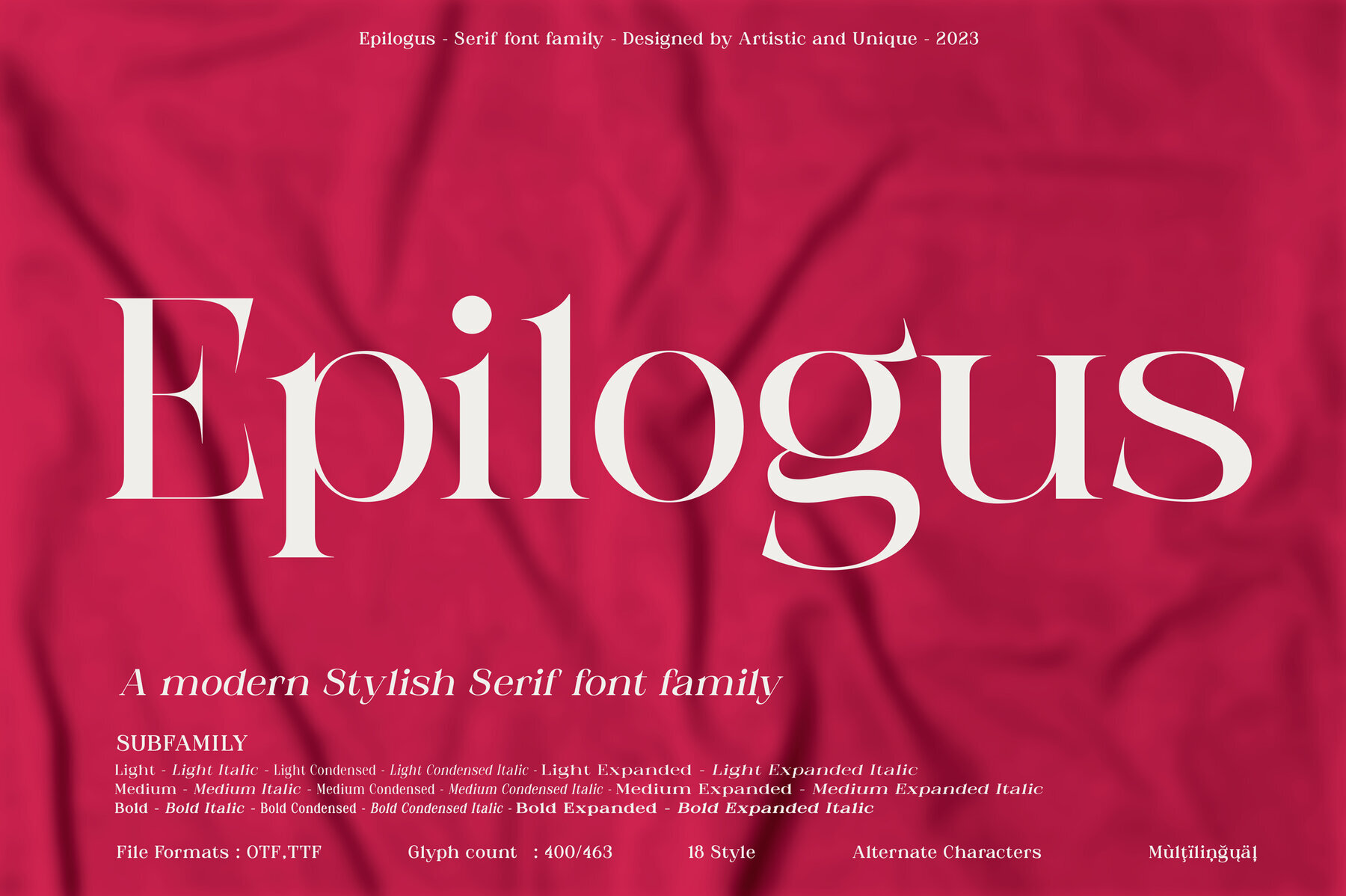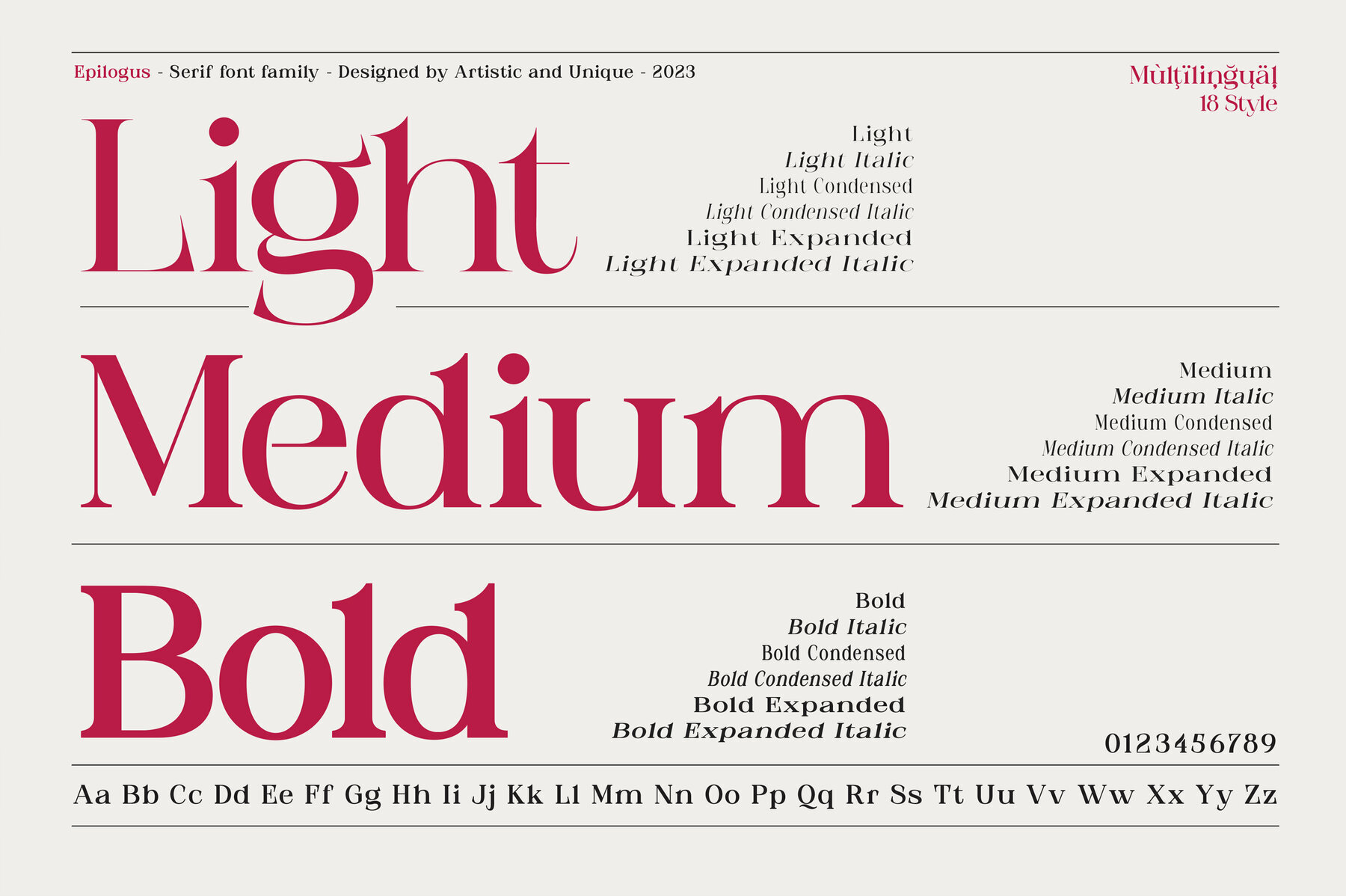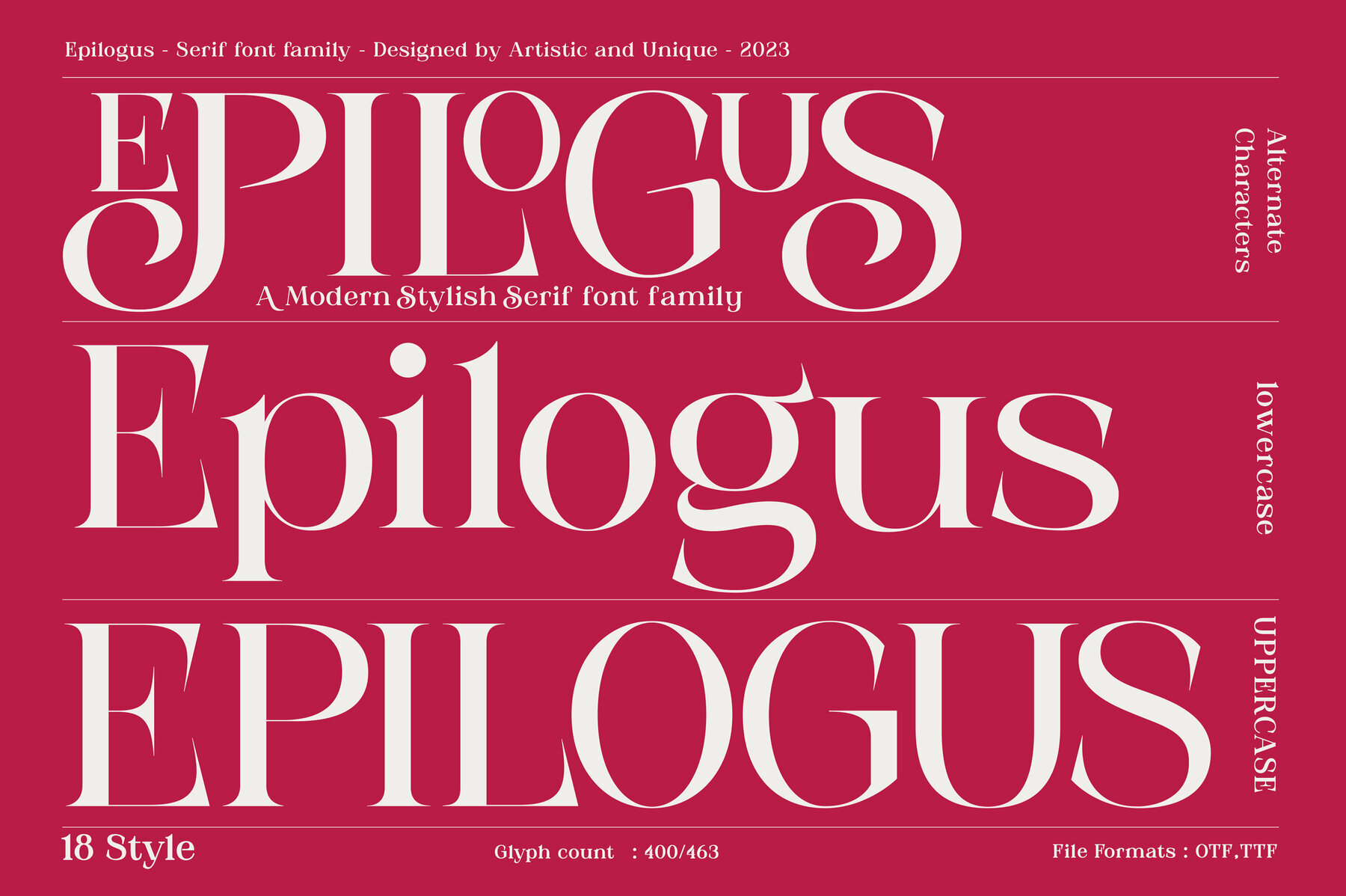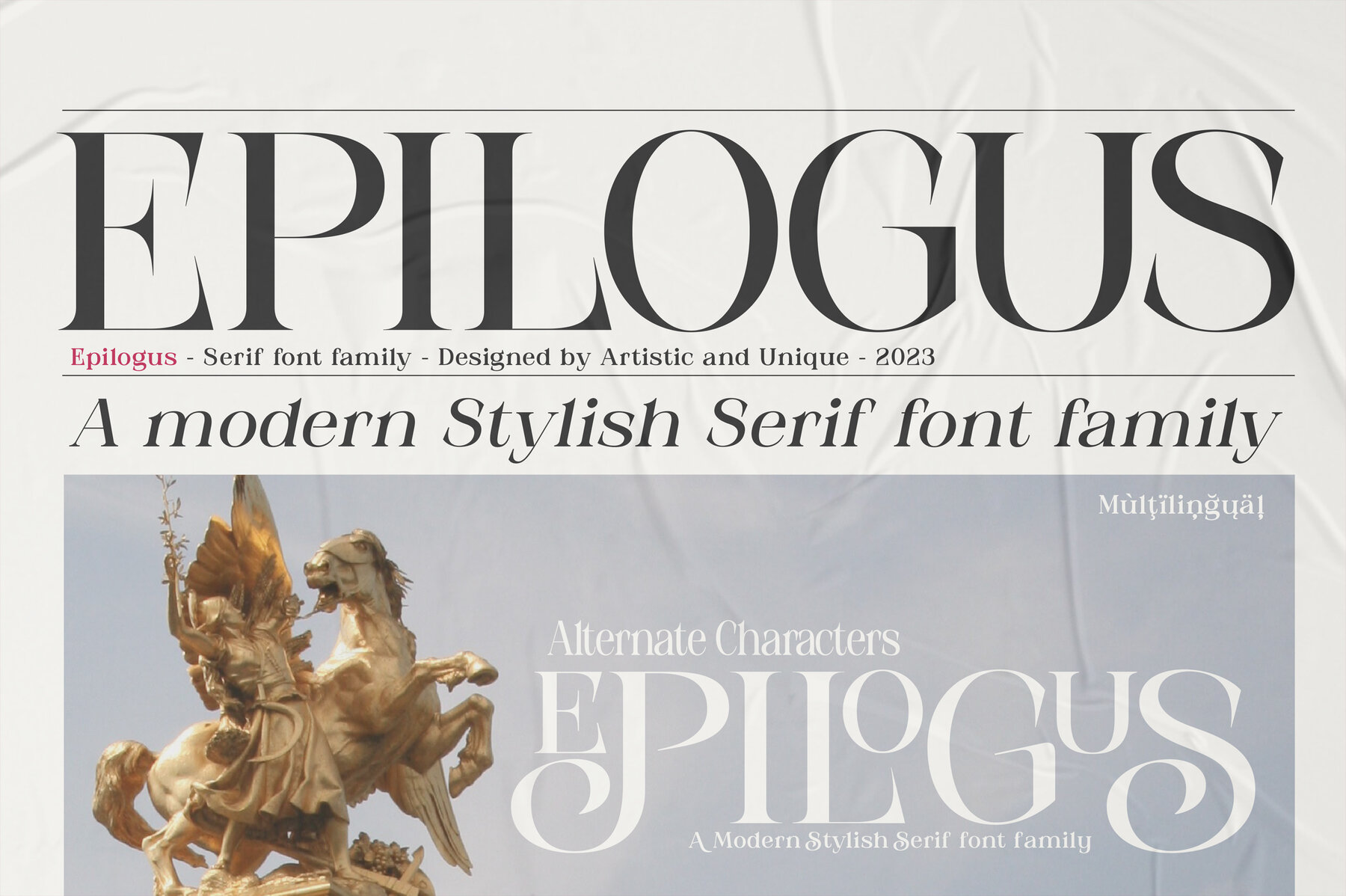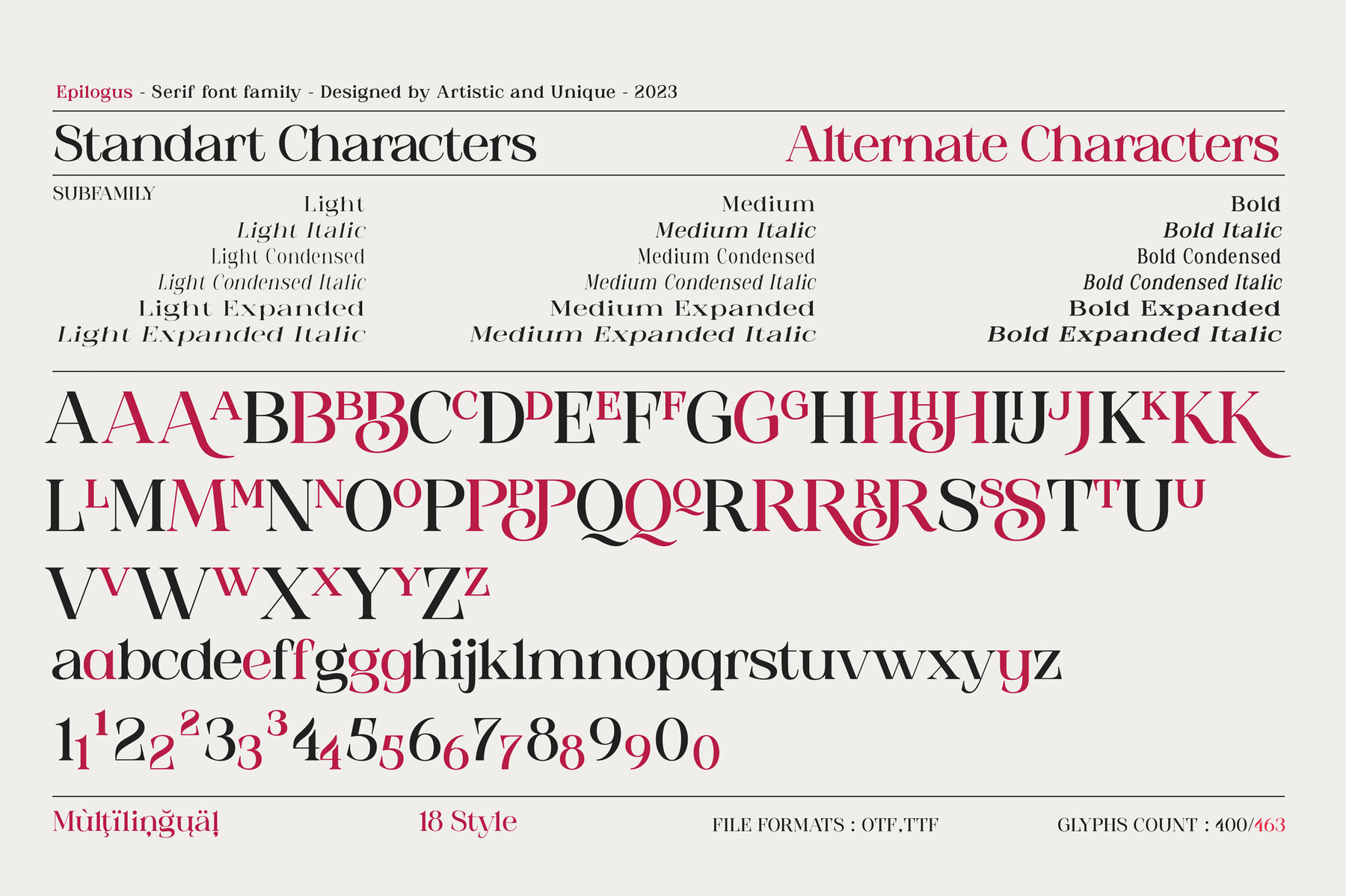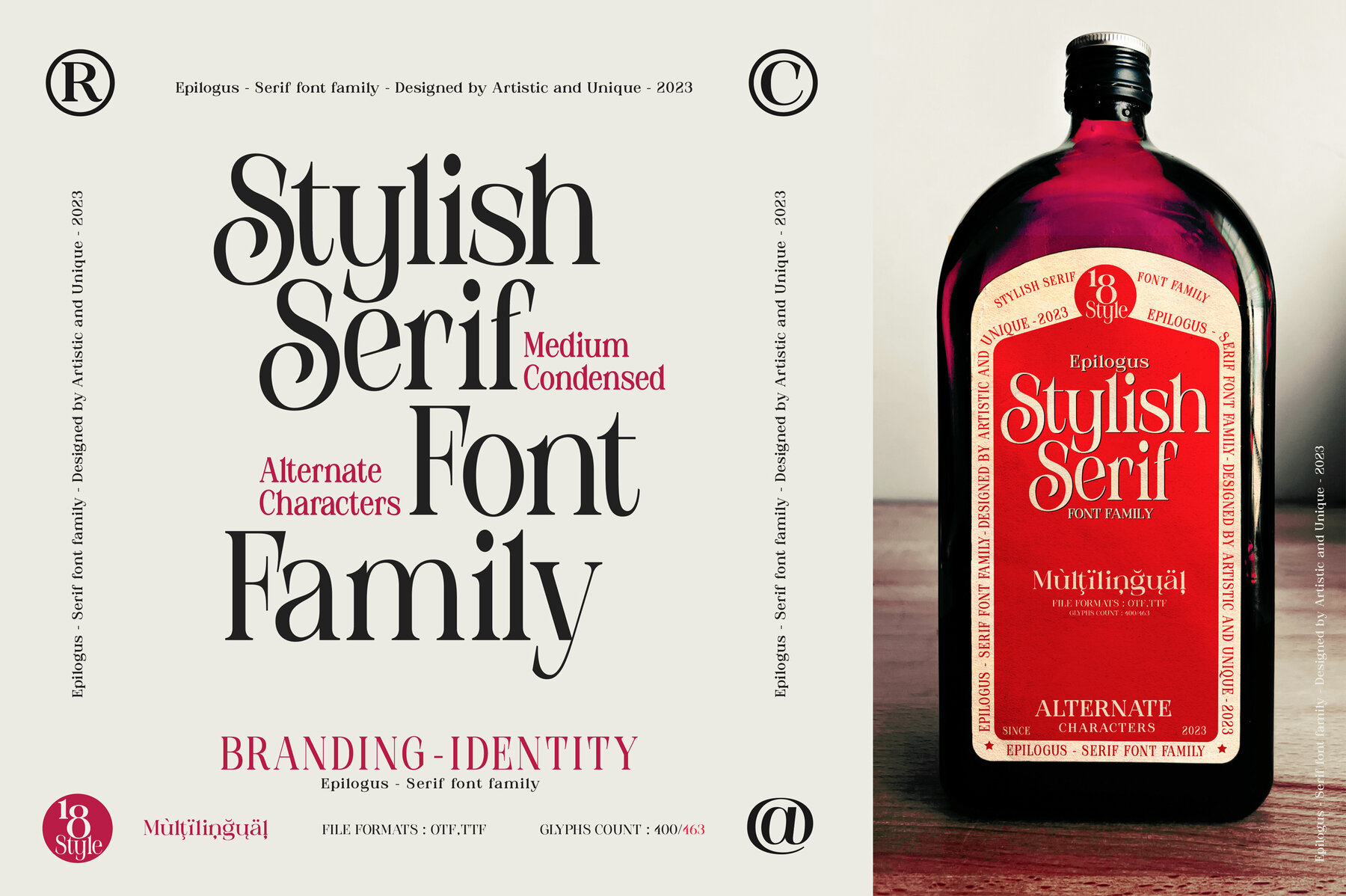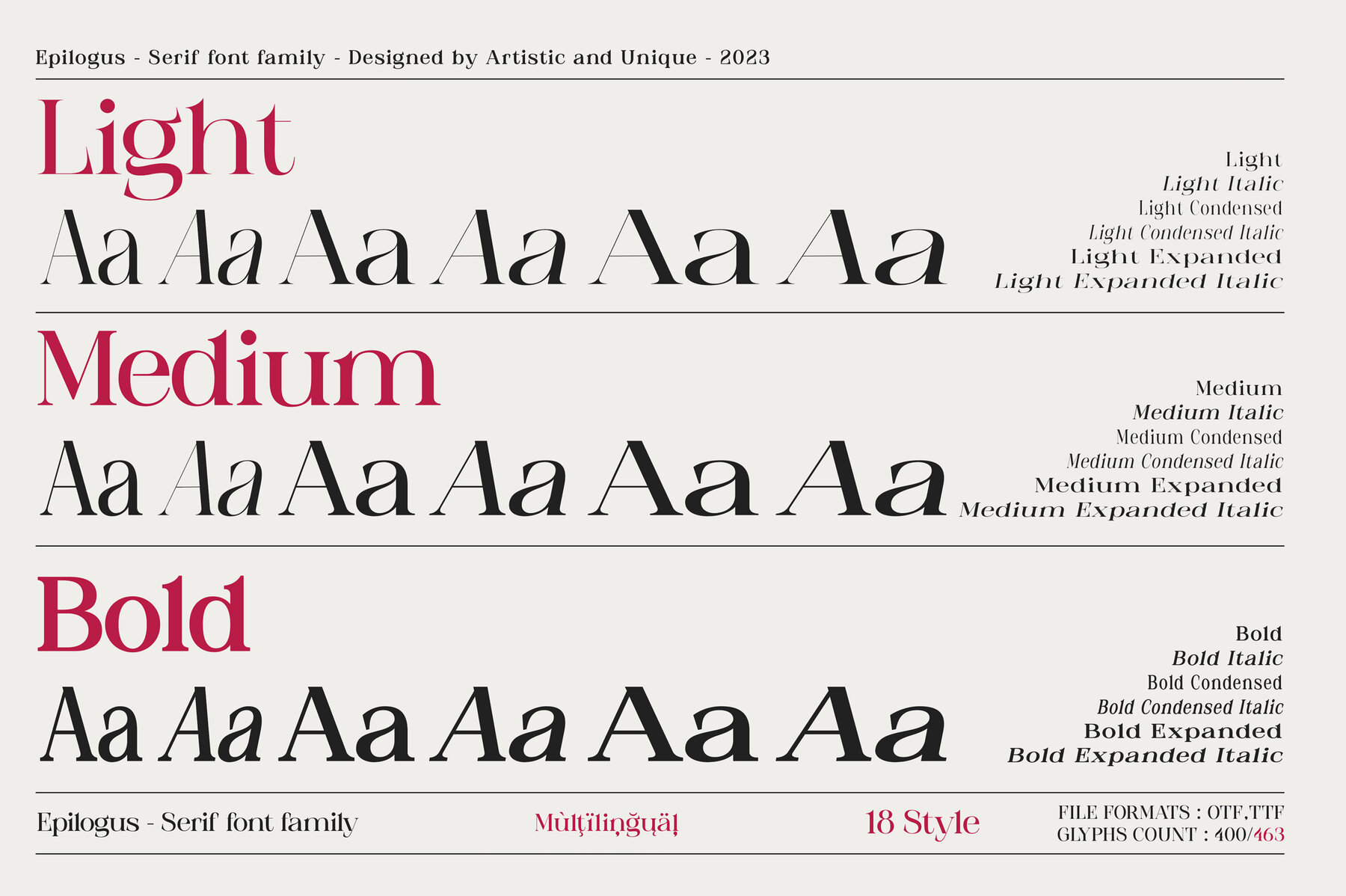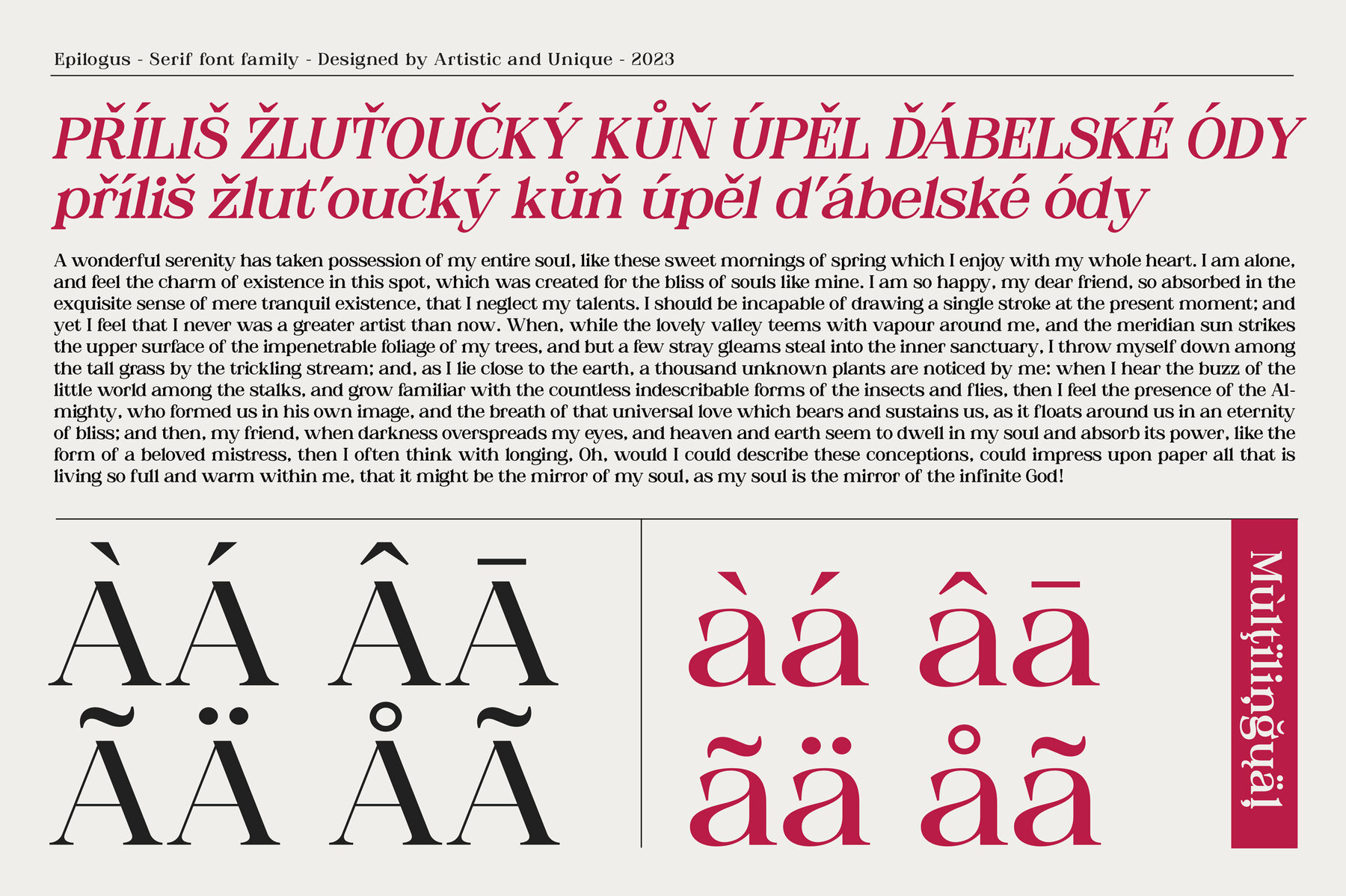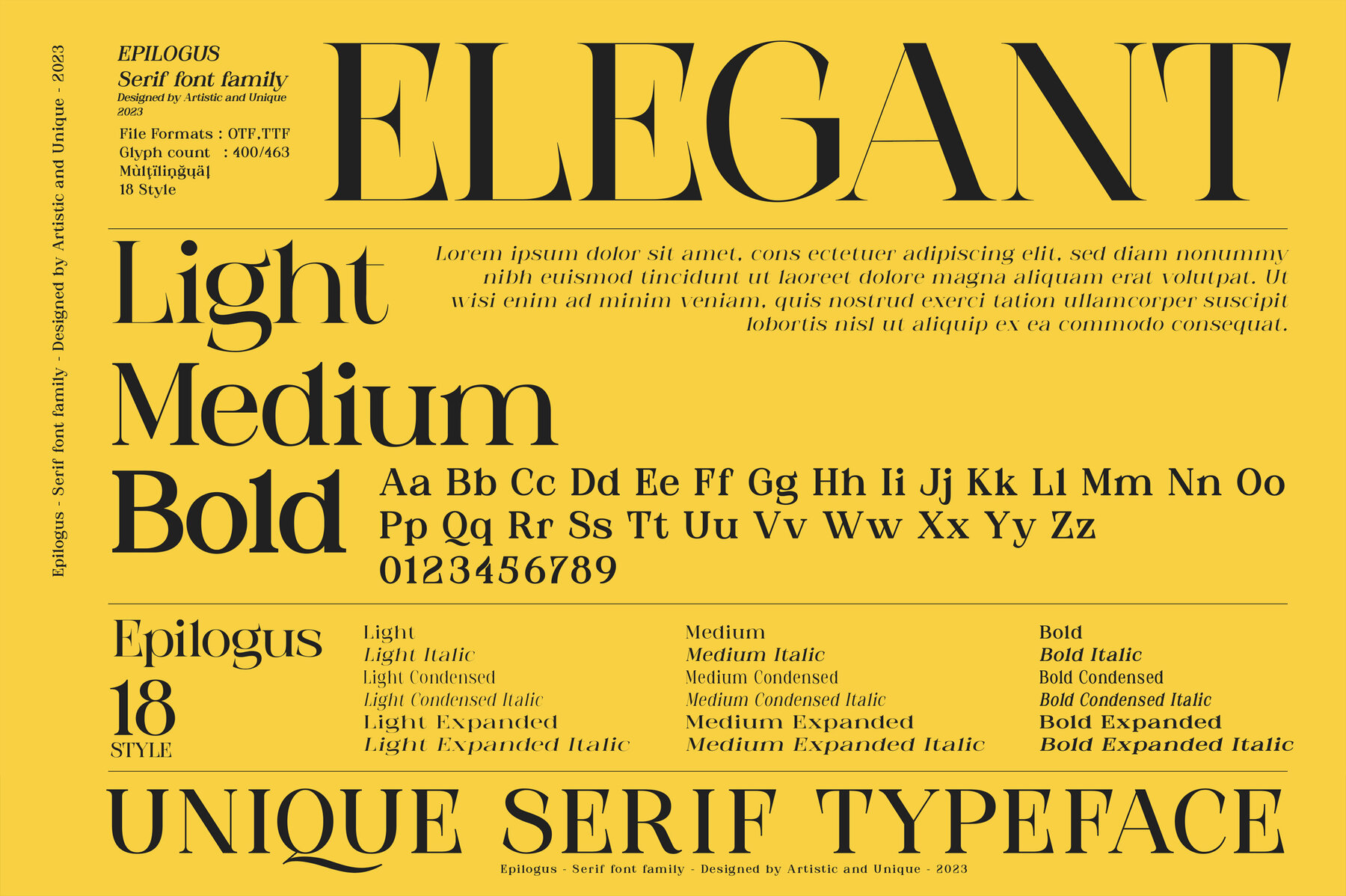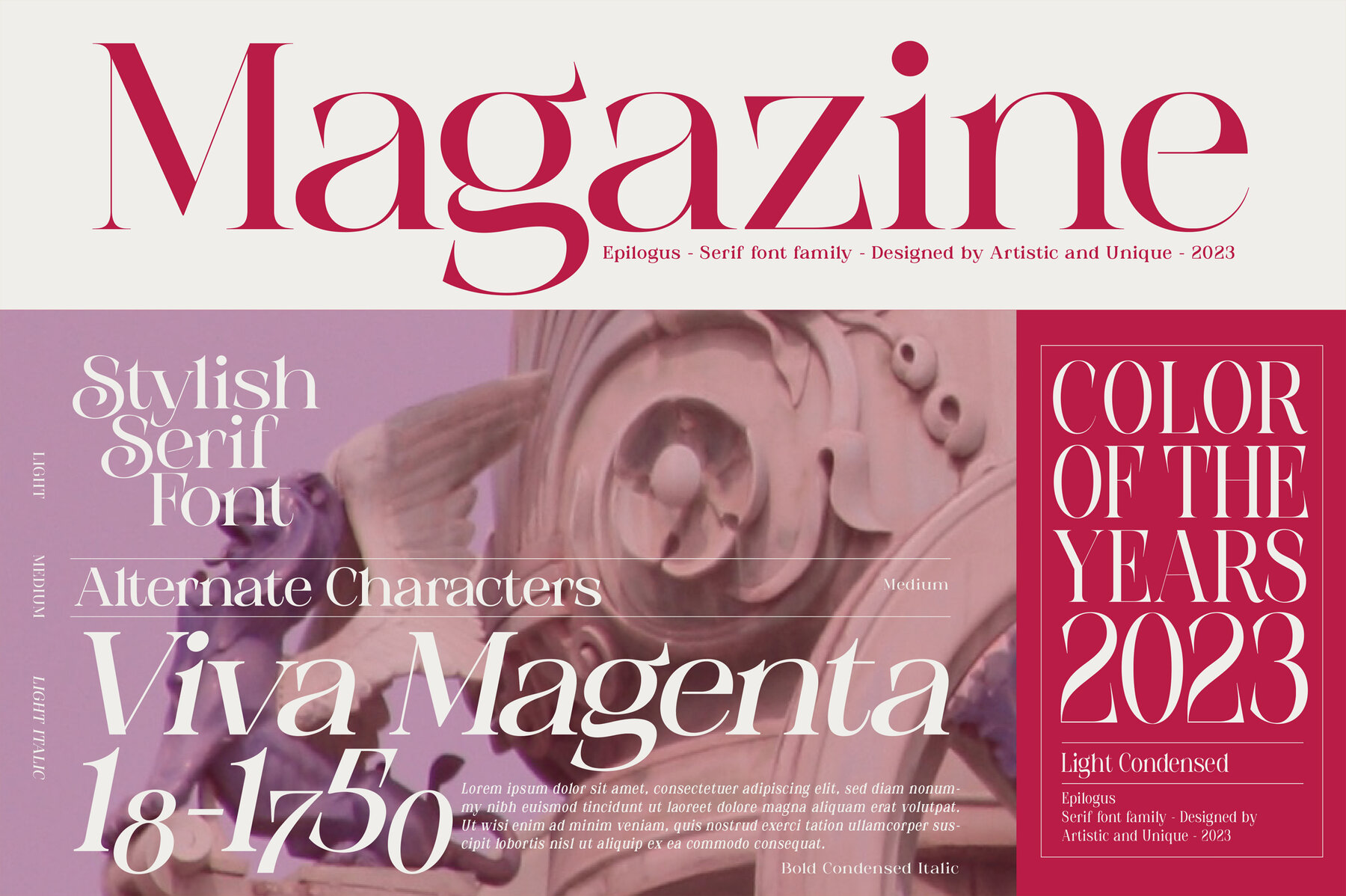
Epilogus Font
Meet Epilogus, a sophisticated serif font family designed to add elegance and adaptability to your creative projects. With its comprehensive suite of 18 styles and multilingual support, Epilogus is perfect for expanding your typographic toolkit. Delight in the diverse alternative character designs, which allow you to customize and enhance your compositions with ease. Ideal for a range of applications, from editorial layouts in magazines and books to branding components like logos and packaging. Leverage the aesthetic appeal of Epilogus to refine your web design, headlines, and even movie titles. The elegant standard characters ensure your straightforward texts remain captivating.Epilogus: The Versatile Serif Font Family